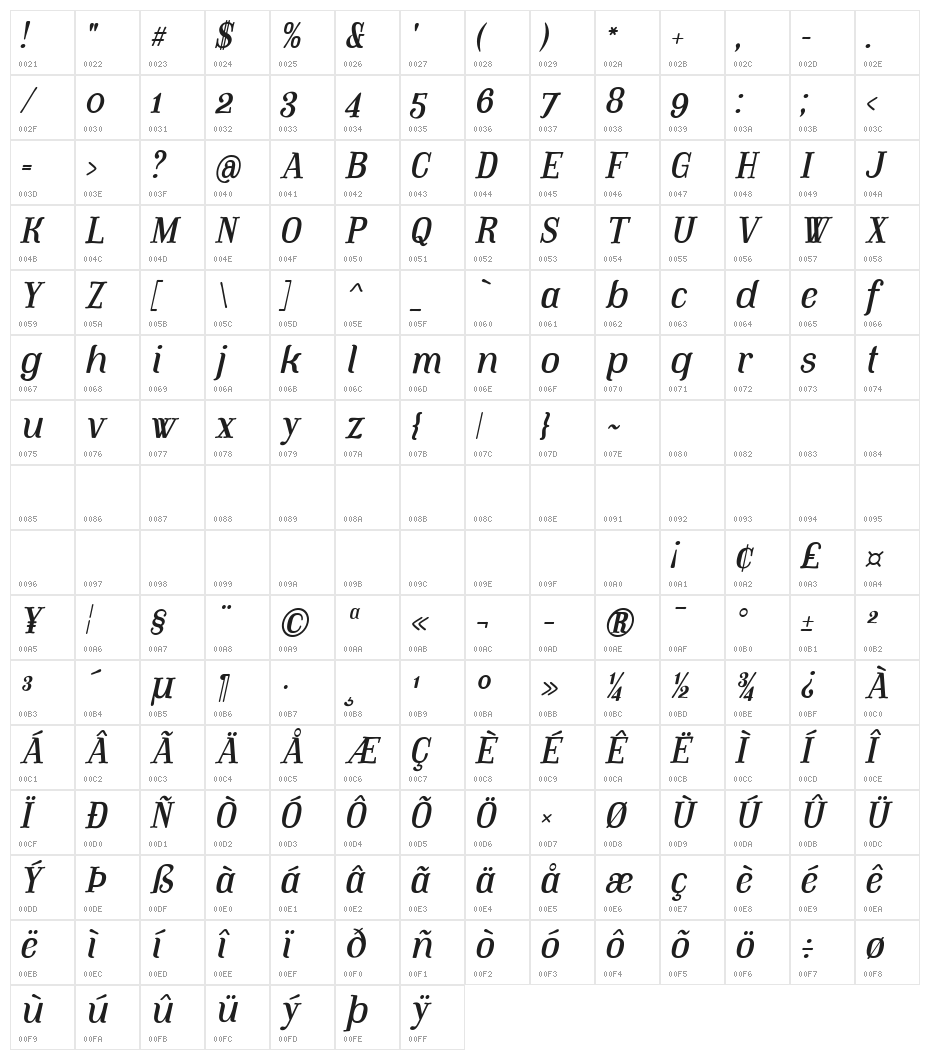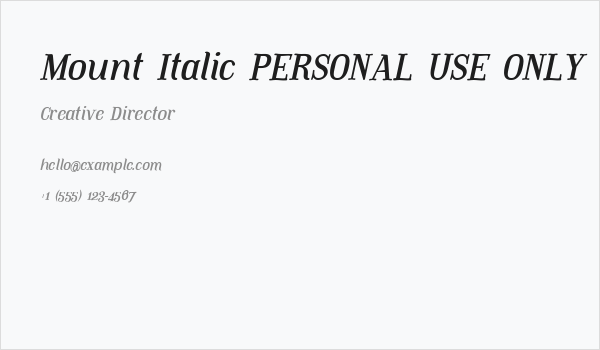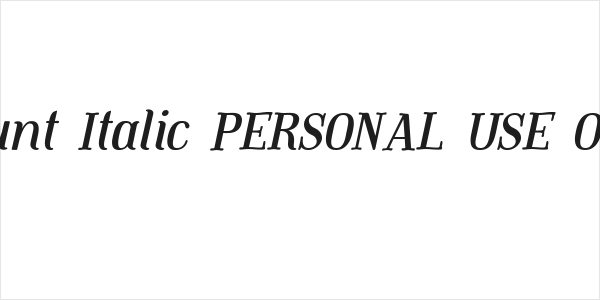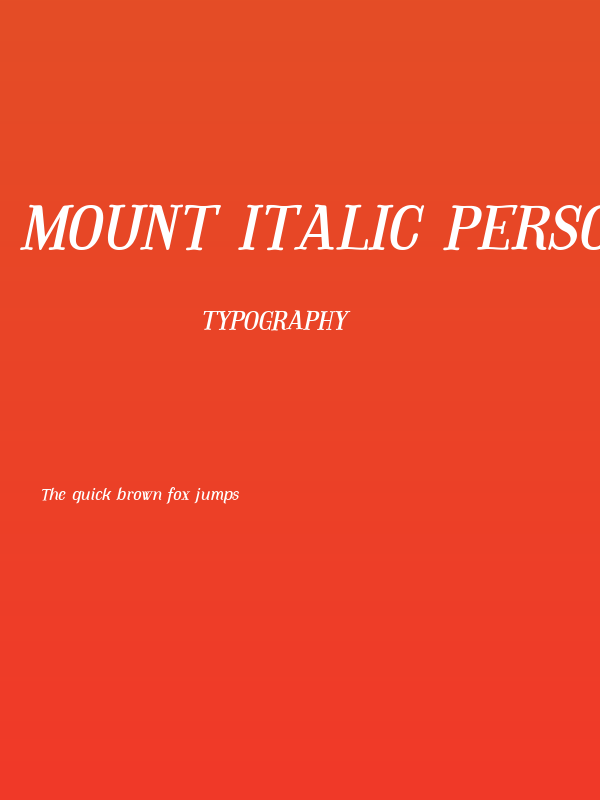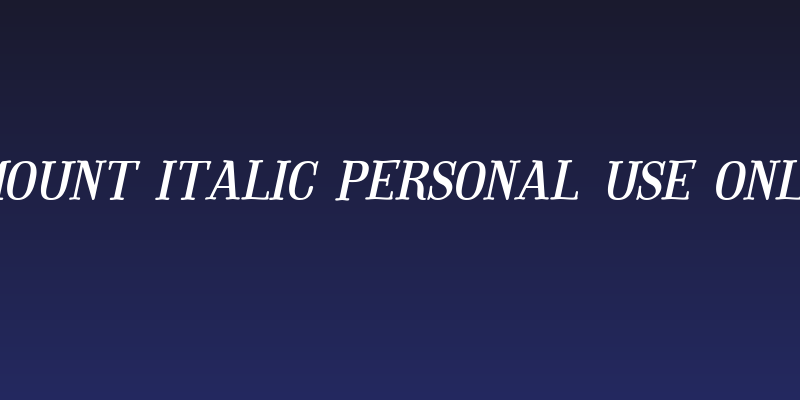
Mount Italic PERSONAL USE ONLY Font
Mount Italic PERSONAL USE ONLY Description
This font features a classic italic style with a smooth, flowing appearance. The characters are elegantly slanted to the right, giving a sense of motion and sophistication. The uppercase letters are tall and slightly narrow, while the lowercase letters maintain a consistent slant, enhancing readability. The numerals are well-proportioned, matching the overall style of the alphabet. Special characters are included, maintaining the same italicized elegance. The font's design is suitable for projects that require a touch of class and elegance, such as invitations, formal documents, or branding materials.
| Proposed Projects | Ideal for wedding invitations, formal documents, branding, and elegant signage. |